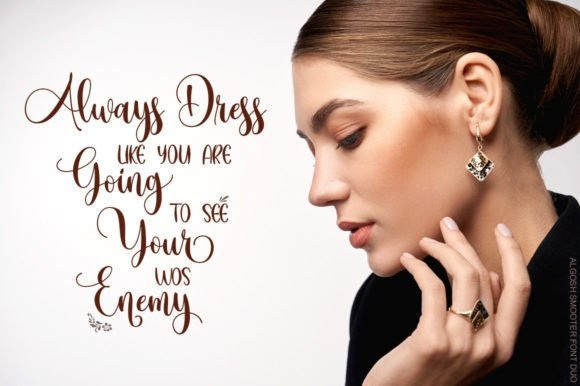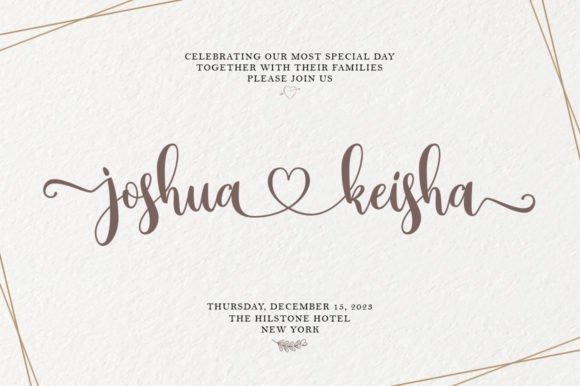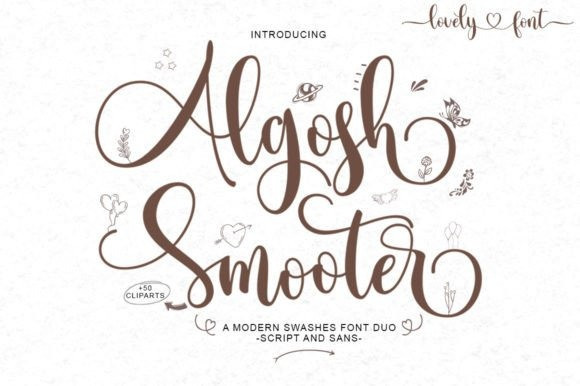
Algosh Smooter Font
Algosh Smooter Font is a stunning font duo (script and handwritten sans). This lovely and sweet font will look great on wedding invitations, thank you cards, quotes, wall art or anything that needs a romantic touch.